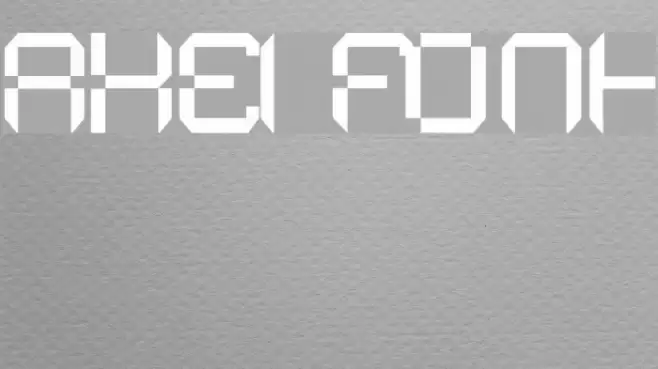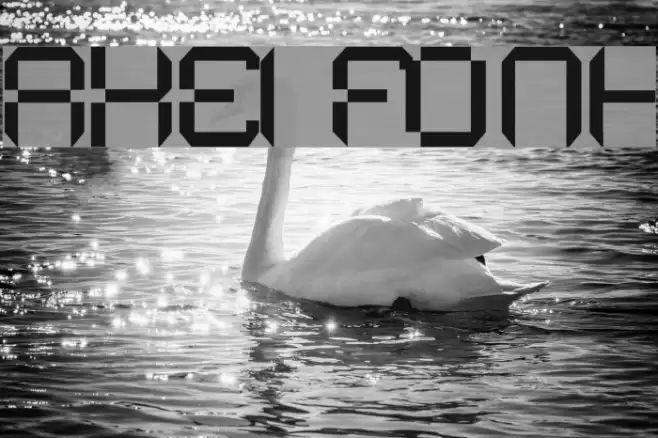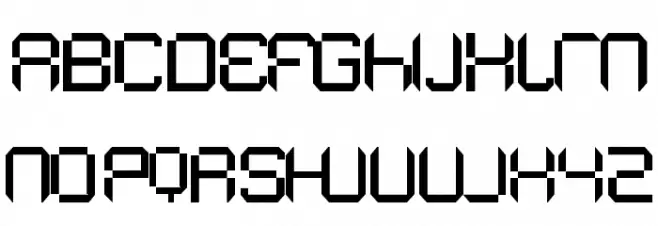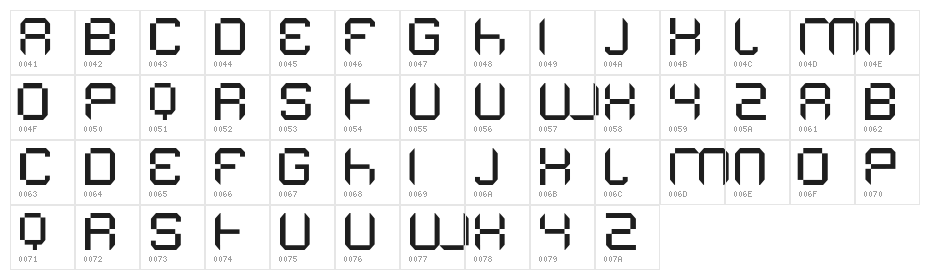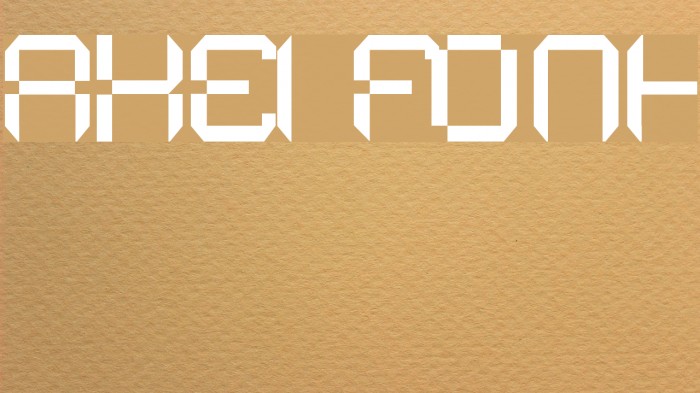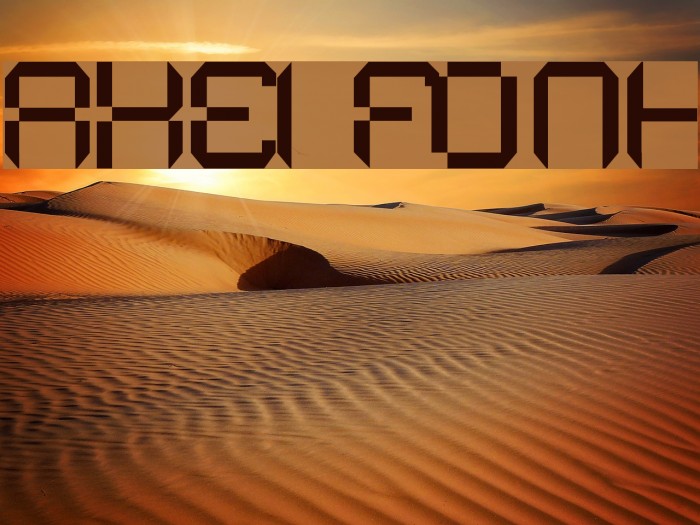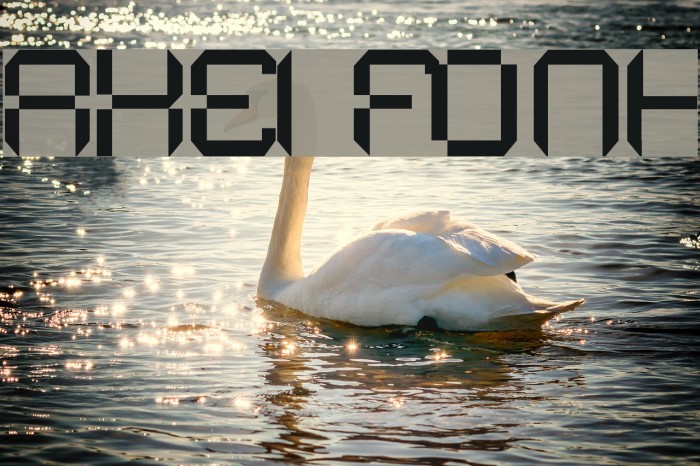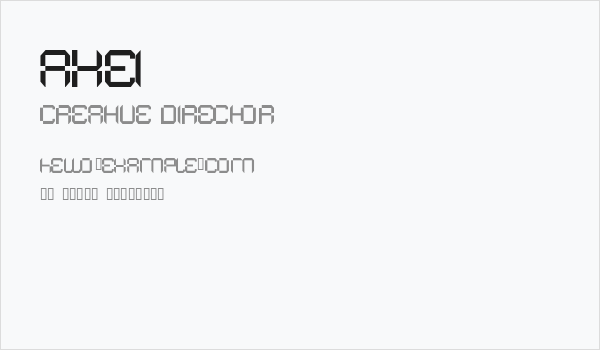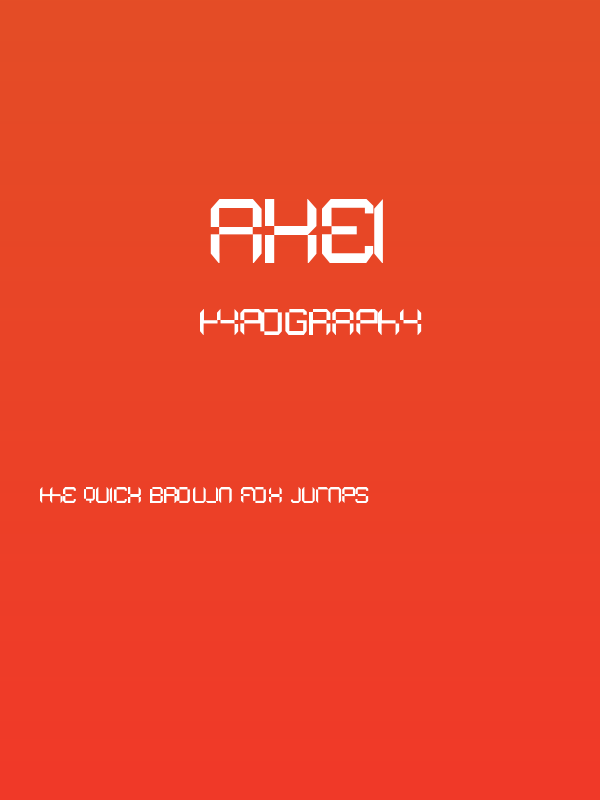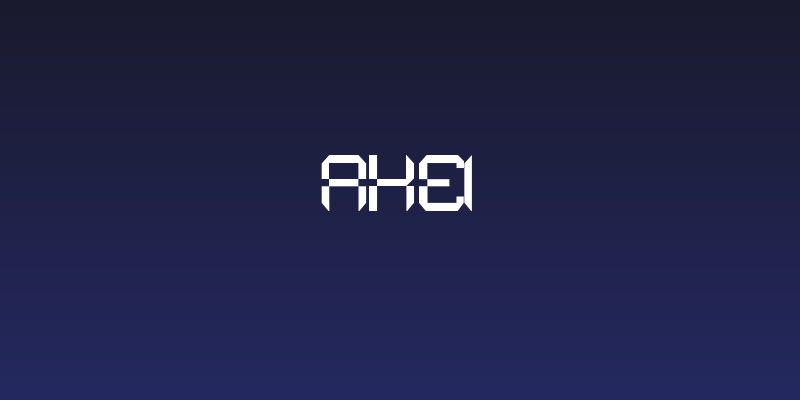
AKEI Font
AKEI Description
This font features a bold, geometric design with a futuristic and digital aesthetic. The characters are constructed with sharp angles and straight lines, creating a sense of precision and modernity. The uppercase letters are uniform in height, while the lowercase letters maintain a consistent style, contributing to a cohesive look. The numbers and special characters follow the same angular design, ensuring uniformity across all glyphs. The font's unique style makes it stand out, ideal for projects that require a modern and tech-savvy appearance.
A bold, geometric font with a futuristic and digital aesthetic from Uncategorized fonts.
- Proposed Projects: Ideal for technology branding, digital media, video game interfaces, and modern advertising campaigns.
- Use Case: Logos, Headlines, Digital Interfaces